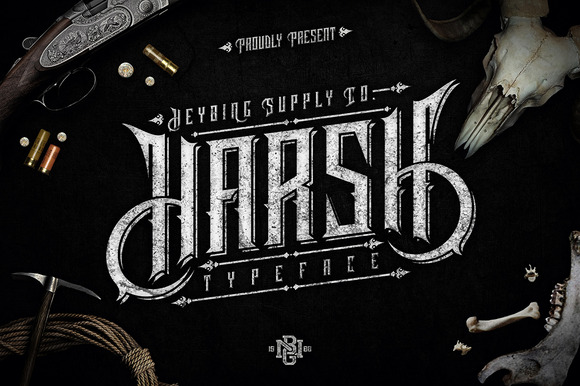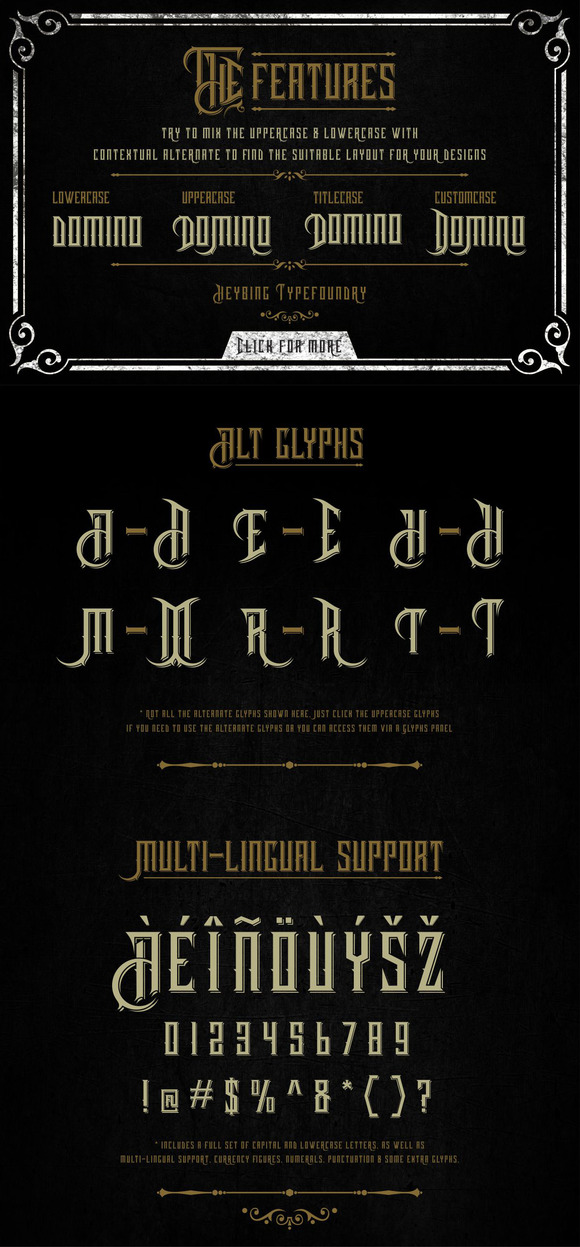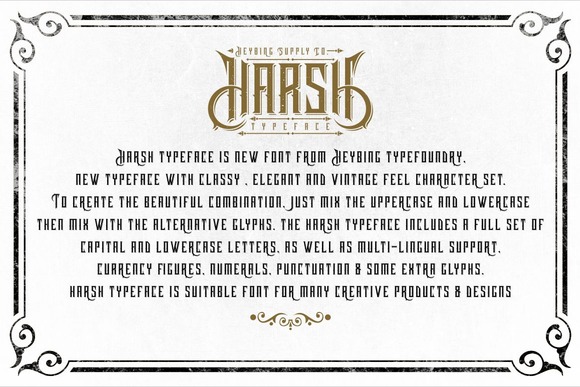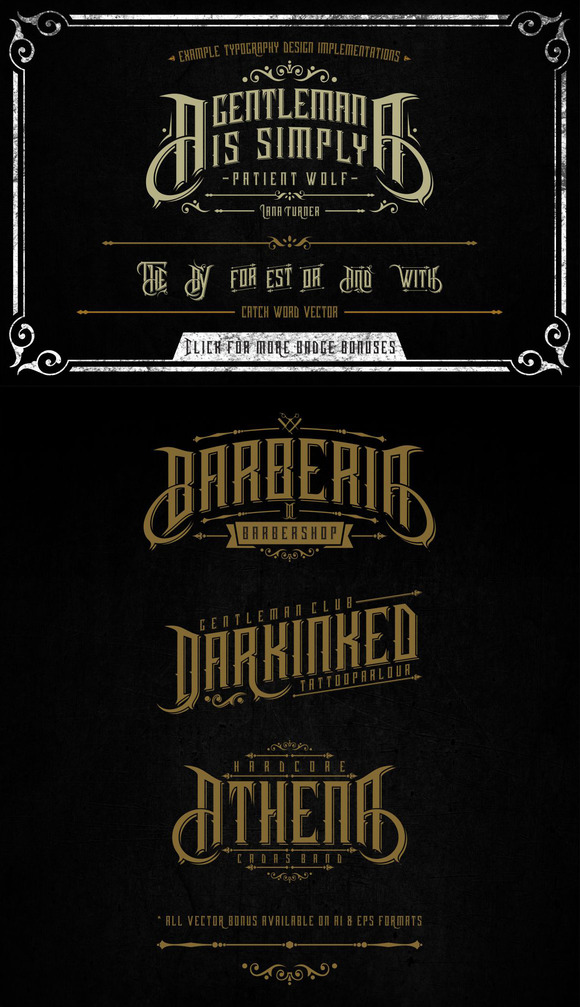
Harsh Typeface + Bonus
Harsh typeface is new font from Heybing Supply Co, new typeface with classy, elegant and vintage feel character set. To create the beautiful combination, just mix the uppercase and lowercase then mix with the alternative glyphs. The harsh typeface includes a full set of capital and lowercase letters, as well as multi-lingual support, currency figures, numerals, punctuation & some extra glyphs. Bundling with vector, catchword, and badges design as a bonus.
Features :
• Character Set A-Z
• Numerals & Punctuations (OpenType Standard)
• Accents (Multilingual characters)
• Stylistic Alternates